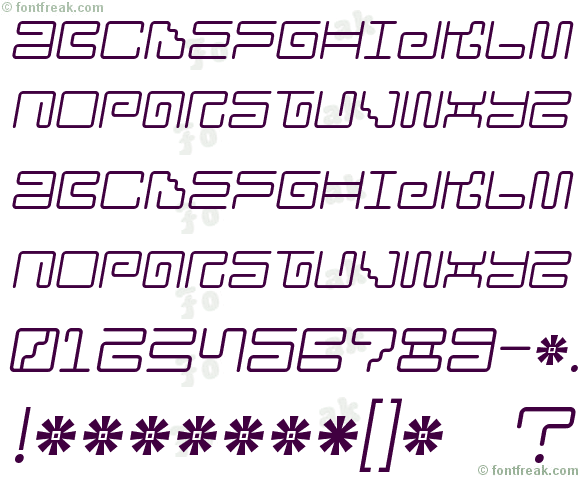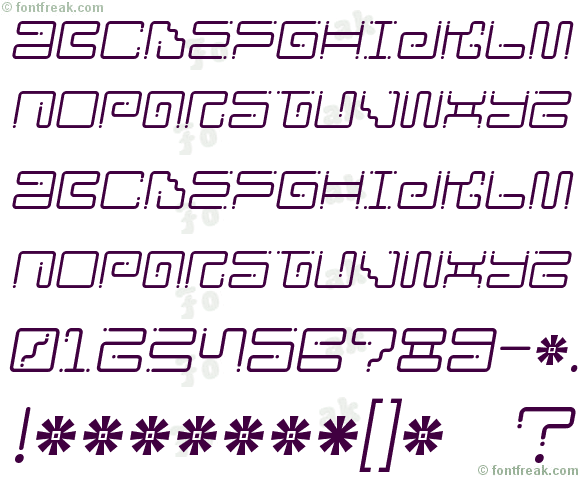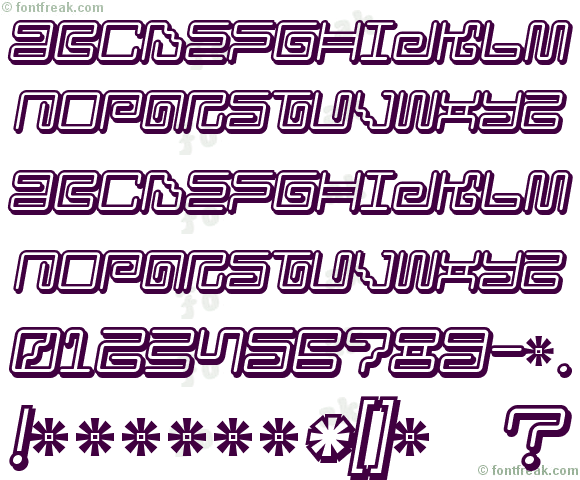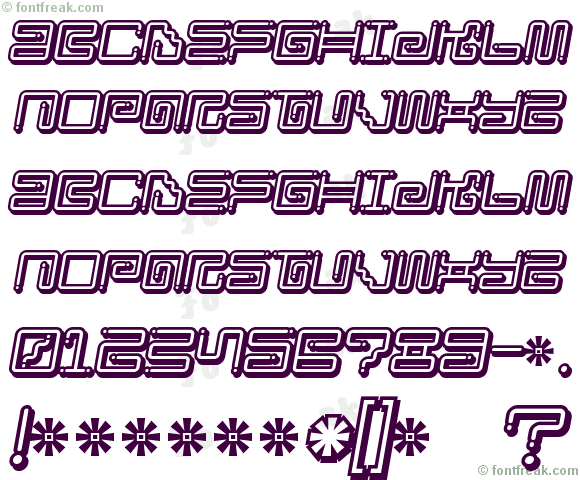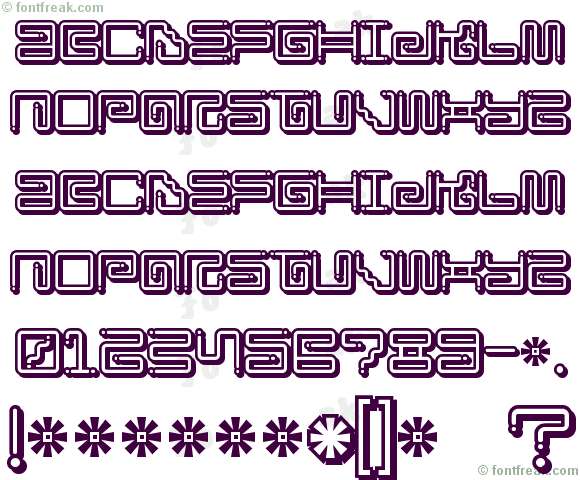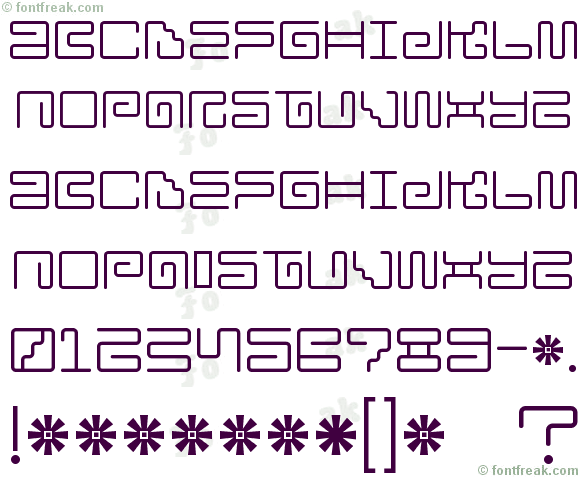
Iron Lounge Dots
Iron Lounge Dots 2
Iron Lounge
Iron Lounge Smart 2
Iron Lounge Smart
Iron Lounge Smart Dot 2
Iron Lounge Smart Dot
Iron Lounge 2
Iron Lounge by Pizzadude is a striking display font that embodies a modern and bold aesthetic, making it an ideal choice for a variety of creative applications. This font falls into the decorative category, characterized by its unique dot-centric design. The letters feature a sturdy stroke weight that gives a sense of robustness, while the spacing is well-balanced, allowing for easy readability. The playful use of dots adds a contemporary flair, making Iron Lounge visually appealing and distinct.
This font is perfect for several use cases, including restaurant menus, where its modern style can enhance the dining experience. It's also an excellent choice for music event posters, as it captures a vibrant and energetic feel that resonates with younger audiences. Graphic designers might find it suitable for branding projects, particularly for businesses that want to convey a chic and urban vibe. Additionally, Iron Lounge can be utilized in social media graphics, helping content creators stand out with its eye-catching appearance.
Targeting graphic designers, small business owners, and content creators, Iron Lounge offers versatility and a fresh perspective in typography. Its unique design elements provide an opportunity to make any project feel more engaging and modern.